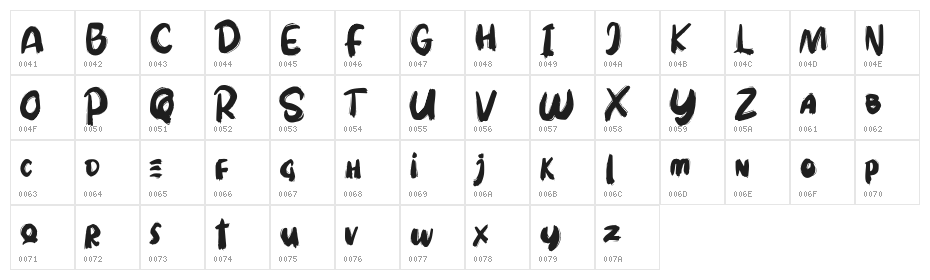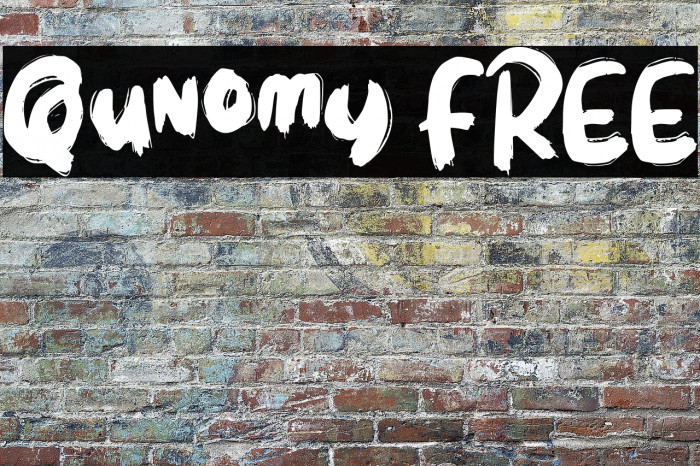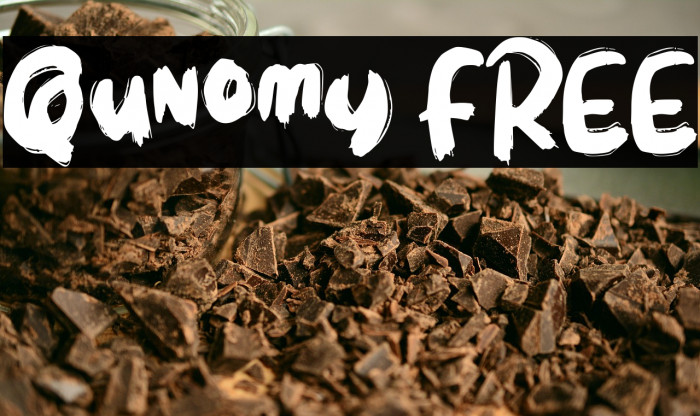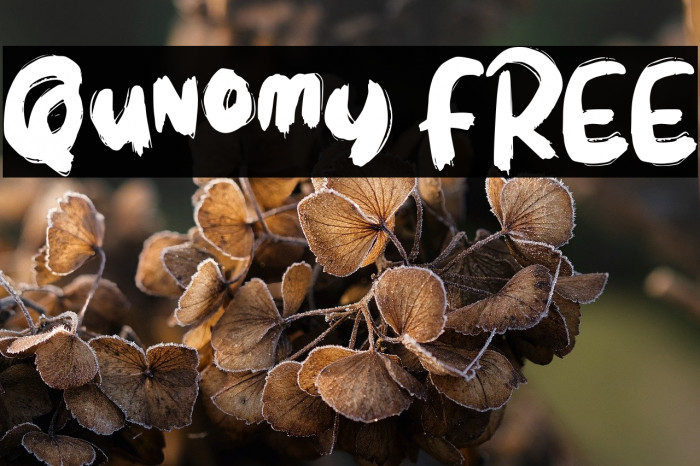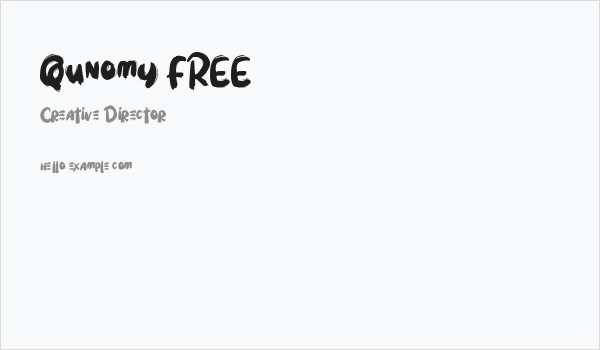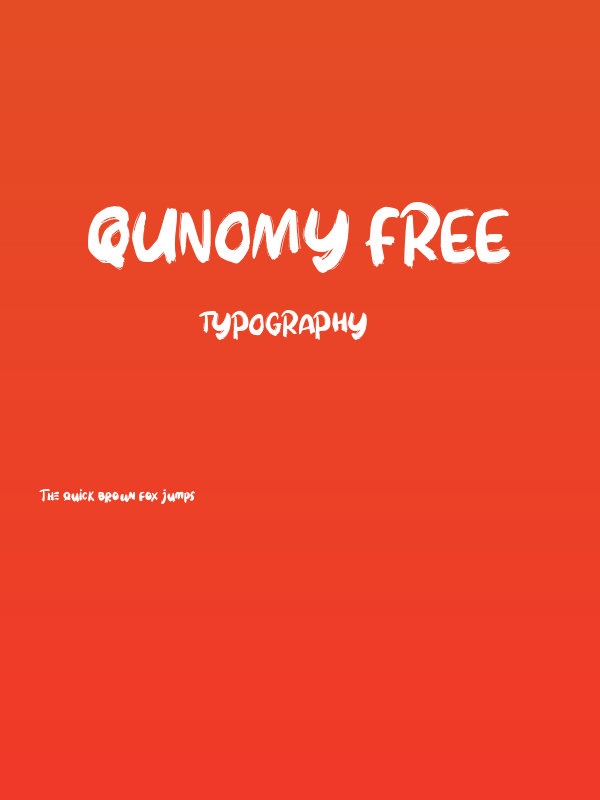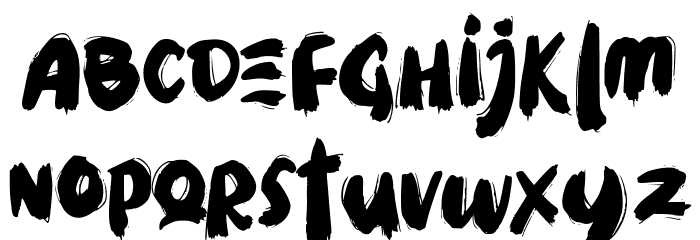
Qunomy FREE Font
Qunomy FREE Description
This font features a bold and expressive brush style, characterized by its dynamic and energetic strokes. The letters exhibit a hand-painted appearance, with varying thicknesses and a slightly irregular baseline, giving it a lively and artistic feel. The uppercase and lowercase letters maintain a consistent style, with some letters having unique flourishes that enhance their visual appeal. The font's design is both modern and edgy, making it suitable for projects that require a strong visual impact. Its artistic nature makes it ideal for creative and unconventional designs.
| Proposed Projects | Ideal for posters, album covers, branding, and any design needing a creative and bold statement. |